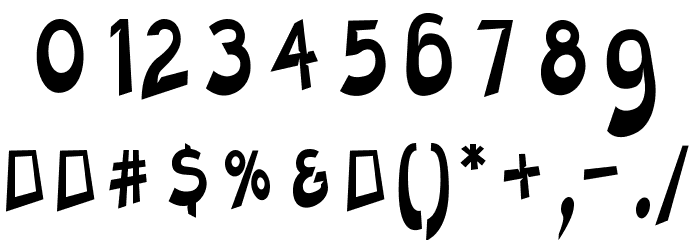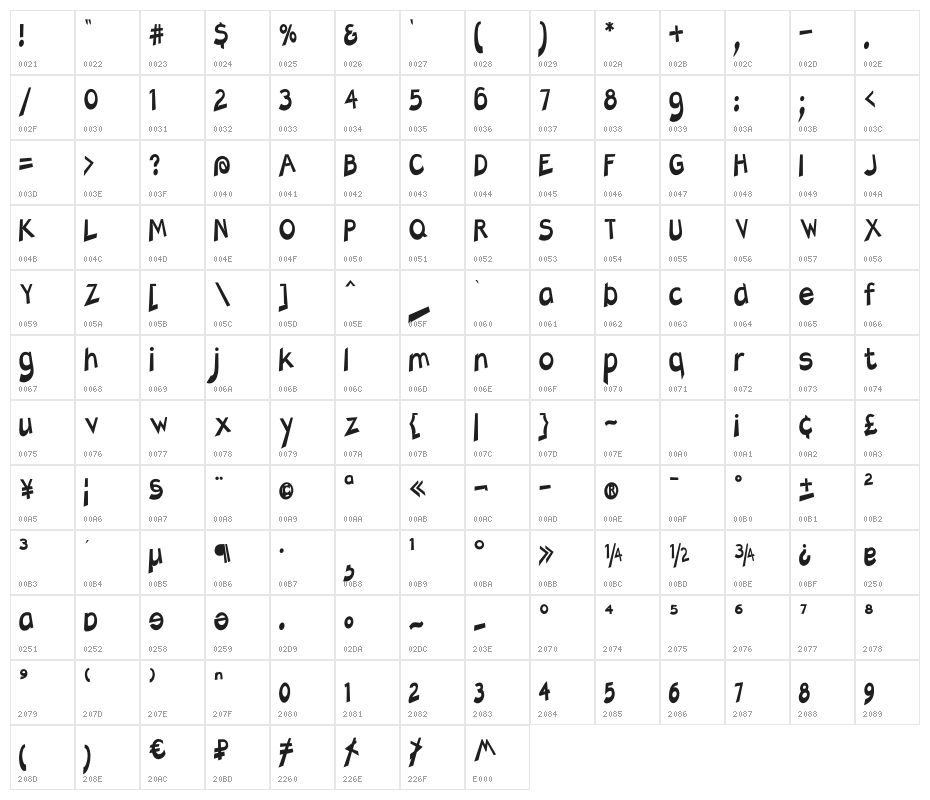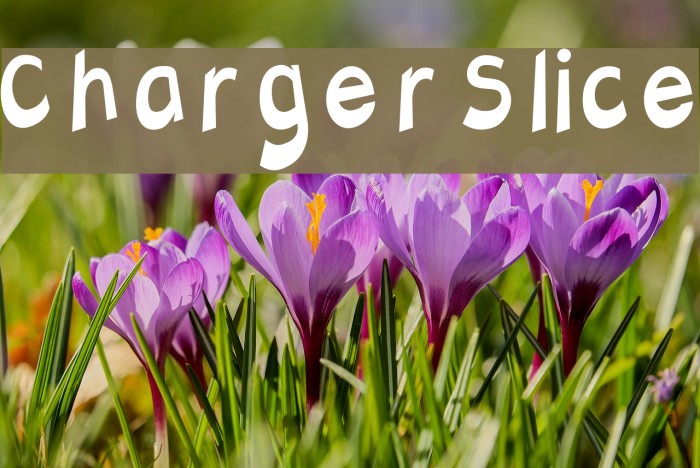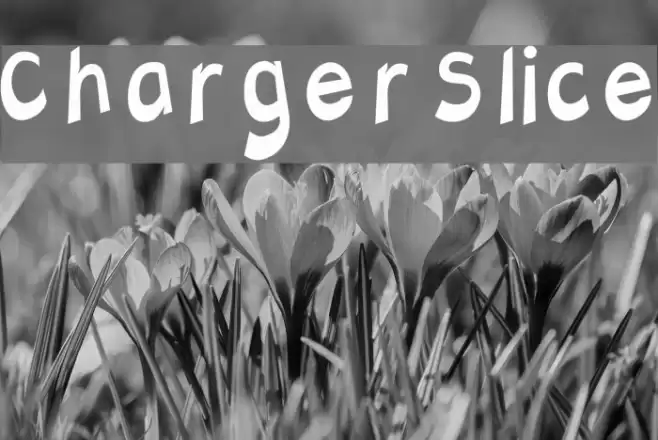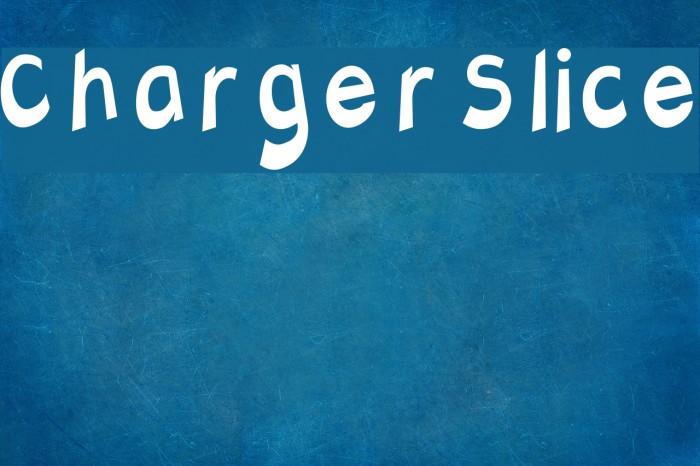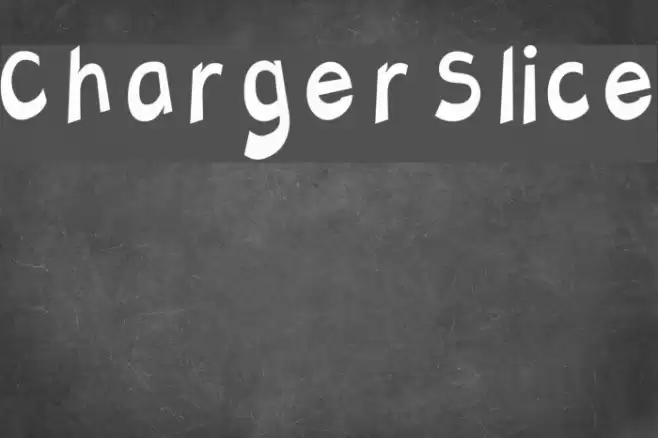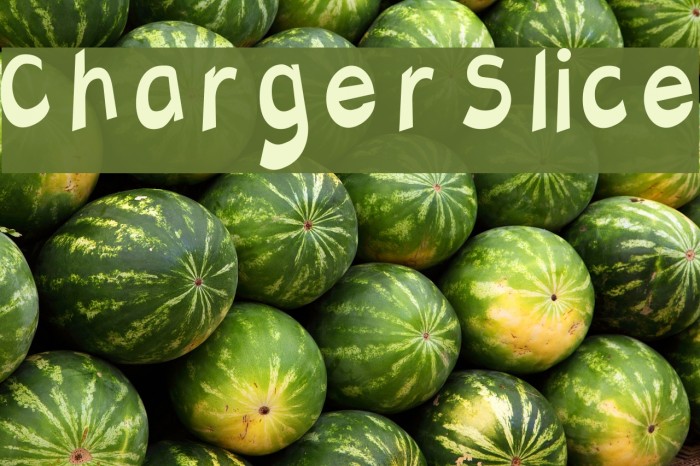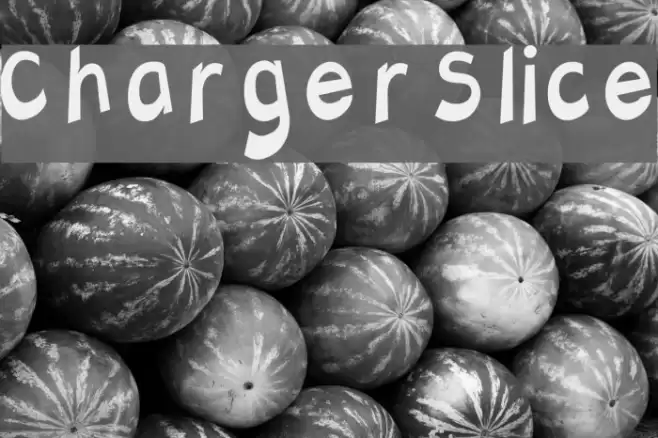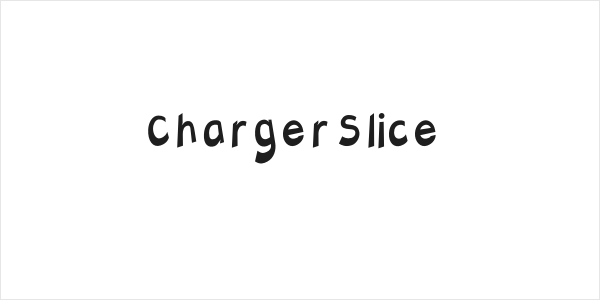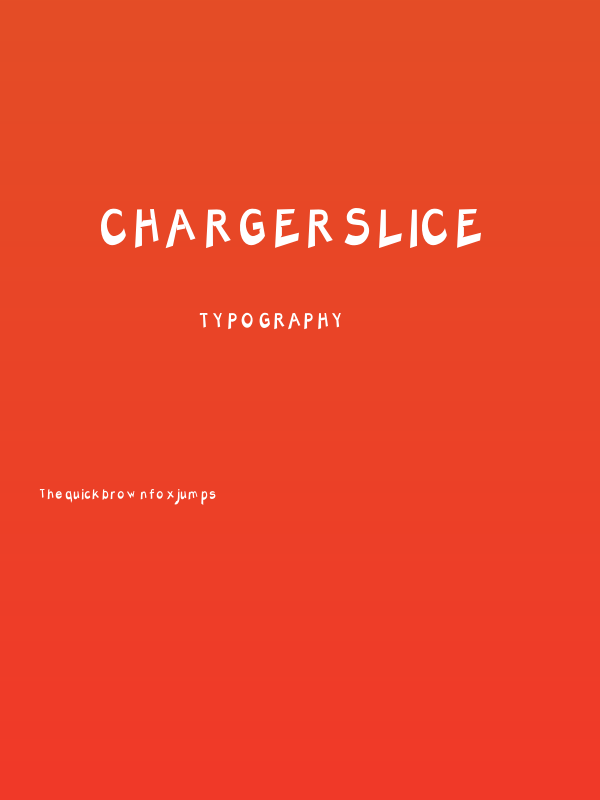
Charger Slice Font
Charger Slice Description
This font features a playful and dynamic style, characterized by its irregular and slightly tilted letterforms. The strokes are bold and exhibit a hand-drawn quality, giving it a whimsical and energetic appearance. The uppercase and lowercase letters maintain a consistent style, with a unique flair in each character that adds to its charm. The numbers and special characters follow the same lively design, making the font versatile for various creative applications. Its distinctive look makes it stand out, perfect for projects that require a touch of fun and creativity.